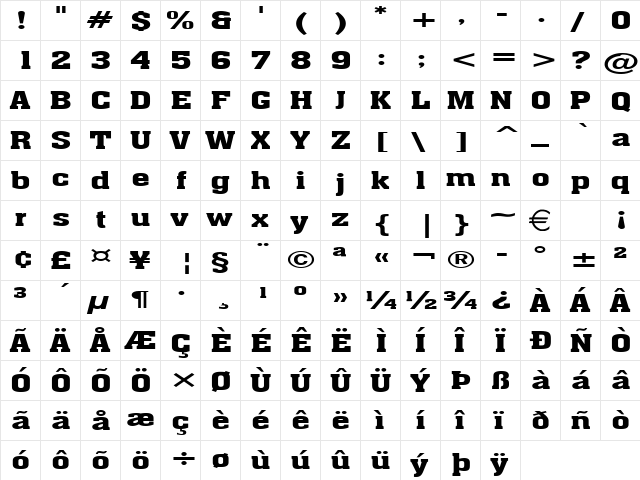
AcheExtended Bold
Design Context for AcheExtended Typeface
AcheExtended offers clean, dependable letterforms without strong stylistic allegiance, making it a practical choice for designers who need flexibility. Its bold stroke weight gives it real presence on the page.
Pro Tip: Use AcheExtended in both headline and body roles to test its range before committing to a single application.